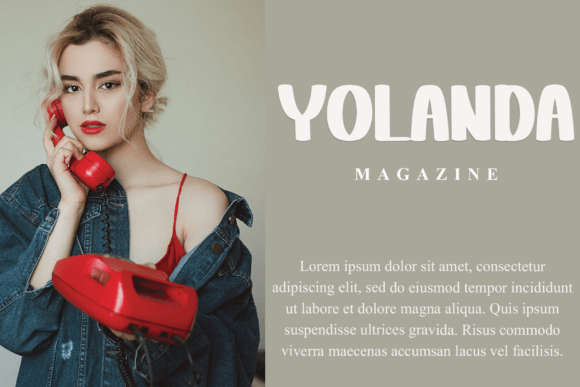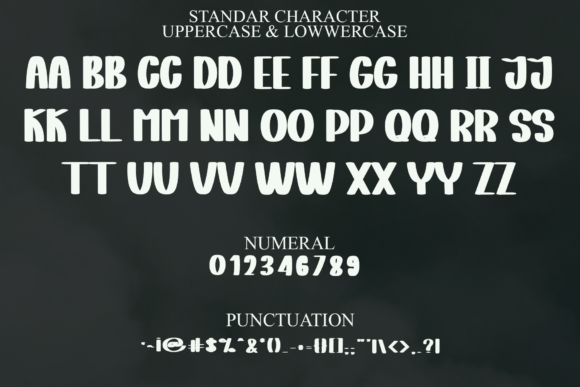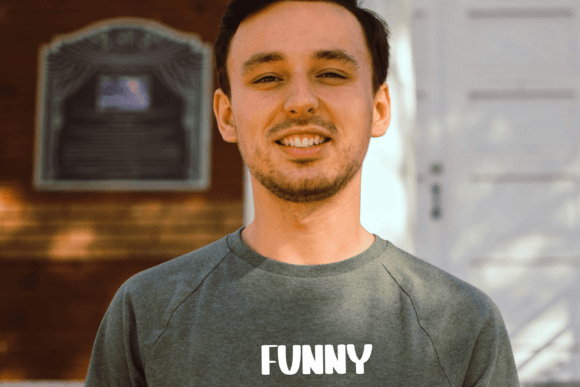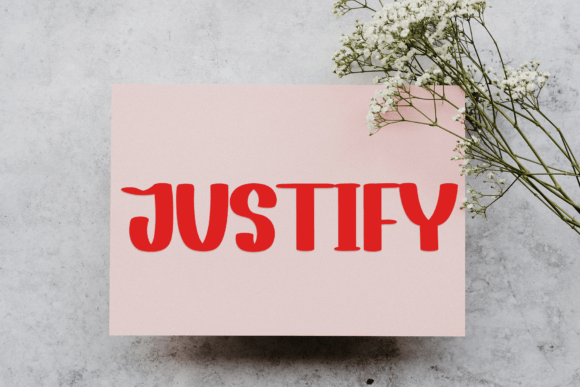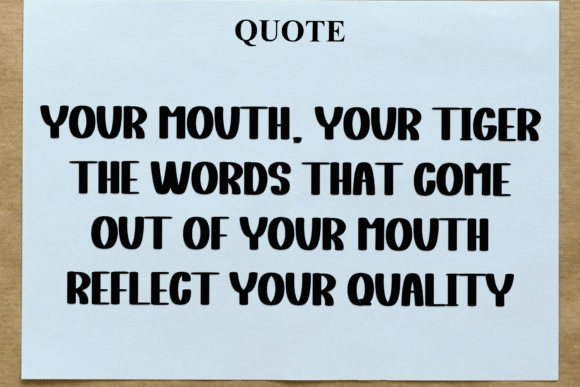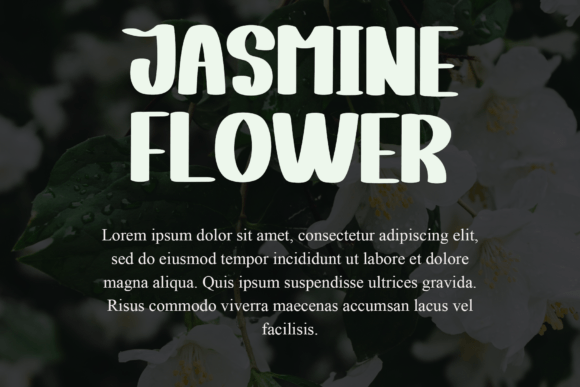
Introducing Entertain Font: Elevate Your Designs with Elegance and Sophistication
Are you on the hunt for a font that exudes class, elegance, and modernity? Look no further than Entertain Font, a stunning display font designed to take your creative projects to the next level. With its refined and sophisticated aesthetic, Entertain Font is perfect for designers, crafters, and anyone looking to add a touch of luxury to their work.
What Makes Entertain Font So Special?
Entertain Font boasts a beautiful, high-end design that’s ideal for a wide range of applications, including logos, branding, invitations, stationery, wedding designs, social media posts, and more. Its versatility and flexibility make it an excellent addition to any designer’s toolkit.
One of the standout features of Entertain Font is its PUA (Private Use Area) encoding. This means that you can easily access all the amazing glyphs and ligatures, allowing you to create unique and eye-catching designs with minimal effort.
Key Features of Entertain Font
- Classy and Elegant Design: Entertain Font features a sophisticated and refined aesthetic that’s perfect for high-end designs.
- Modern Look and Feel: The font’s modern design ensures that your projects will look fresh and contemporary.
- PUA Encoded: Easily access all glyphs and ligatures to take your designs to the next level.
- Multipurpose: Use Entertain Font for logos, branding, invitations, stationery, wedding designs, social media posts, and more.
Why Choose Entertain Font?
With so many fonts available, why should you choose Entertain Font? Here are just a few reasons:
- Unique and Eye-Catching Designs: Entertain Font’s elegant design and PUA encoding ensure that your projects will stand out from the crowd.
- Time-Saving: The font’s ease of use and extensive feature set save you time and effort, allowing you to focus on the creative aspects of your project.
- High-Quality: Entertain Font is designed to deliver exceptional results, ensuring that your projects look professional and polished.
Design Ideas with Entertain Font
Entertain Font is an incredibly versatile font that can be used for a wide range of design projects. Here are some ideas to get you started:
- Wedding Invitations: Create beautiful, elegant wedding invitations that set the tone for a sophisticated and memorable event.
- Branding and Logos: Use Entertain Font to create a luxurious brand identity that reflects your business’s values and aesthetic.
- Social Media Graphics: Elevate your social media presence with eye-catching graphics and posts that showcase your brand’s personality.
- Stationery and Packaging: Add a touch of elegance to your stationery, packaging, and other marketing materials.
Entertain Font is a stunning display font that offers a unique combination of elegance, sophistication, and versatility. With its PUA encoding, classy design, and extensive feature set, it’s an excellent choice for designers, crafters, and anyone looking to elevate their creative projects. Whether you’re working on a wedding invitation, branding project, or social media graphic, Entertain Font is sure to impress.